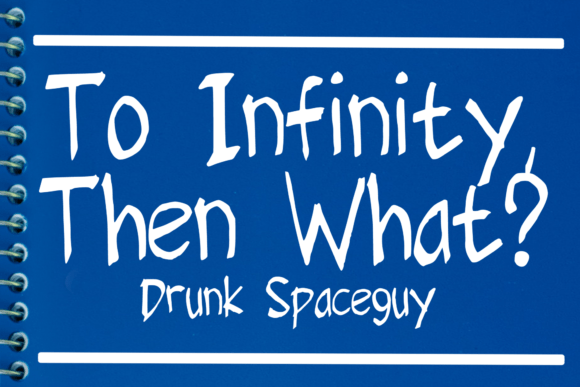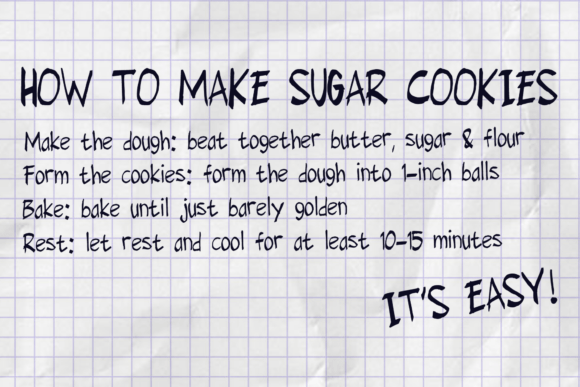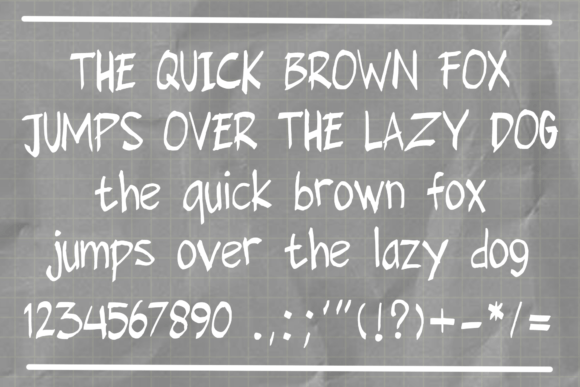
Introduction to Quick Marker Font Font
Fonts play a crucial role in design, and the Quick Marker Font font is a typeface that brings both character and versatility to any project. Whether you’re working on a branding project, a website, or a print design, the Quick Marker Font font offers a unique style that can elevate your work.
Quick Marker is a quick handwritten skinny font that you can use it for anything ranging from t-shirts, book designs, packaging, and greeting cards to stickers and posters, or anything that needs a casual touch, it will be your perfect font to pick.
Fall in love with its incredibly versatile style, and use it to create lovely designs .
Key Features of Quick Marker Font Font
Why Choose Quick Marker Font Font?
The Quick Marker Font font is more than just a typeface – it’s a design tool that helps you communicate your message with style and clarity. Its unique character set and versatile design make it suitable for a wide range of applications, from elegant invitations to bold headlines.
With its carefully crafted letterforms and balanced proportions, the Quick Marker Font font ensures readability and visual appeal across all mediums.
What makes Quick Marker Font font special?
The Quick Marker Font font stands out with its unique design, exceptional readability, and versatility across various design applications.